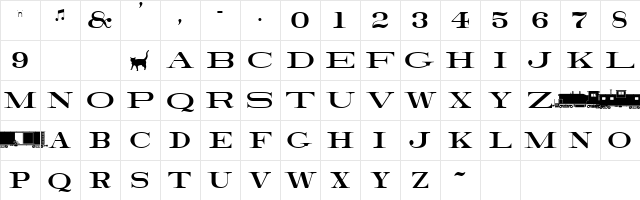
Complete RailroadRoman Regular glyph index. Displaying only characters natively supported by RailroadRoman Regular font.
RailroadRoman is a composed and adaptable typeface that performs quietly and consistently across a wide range of design contexts.